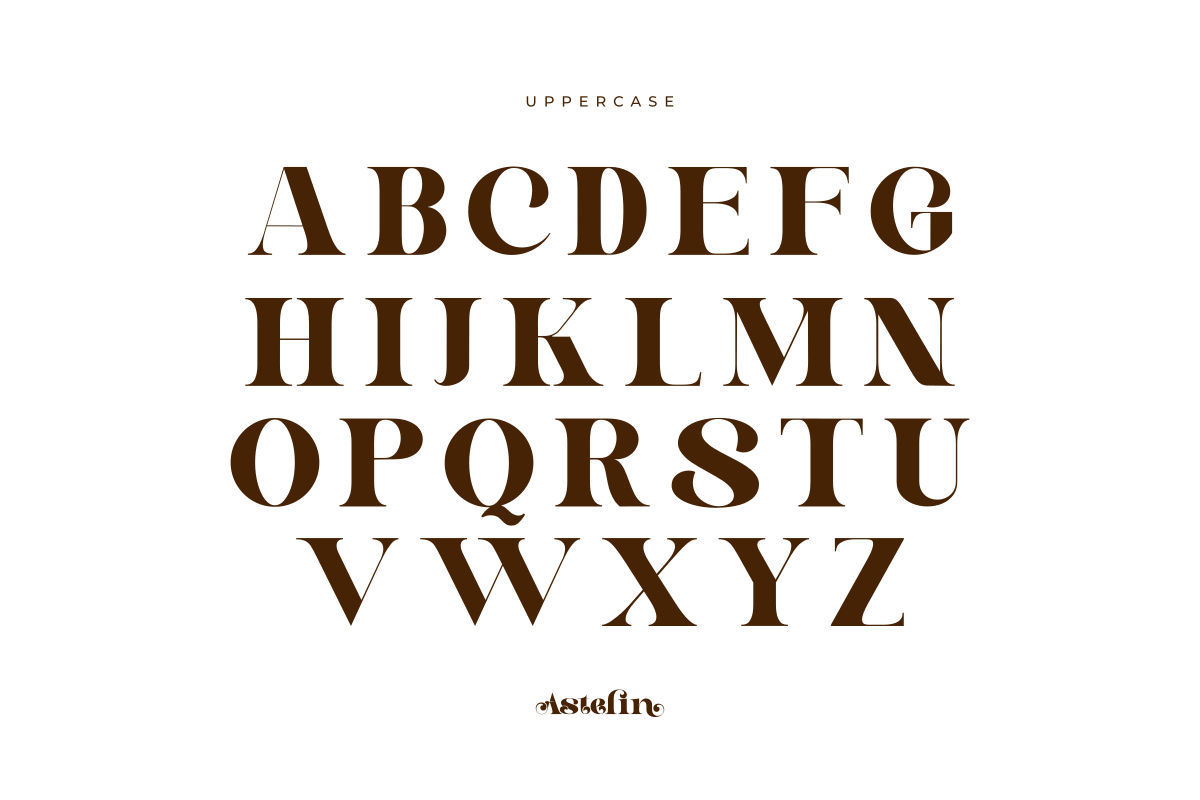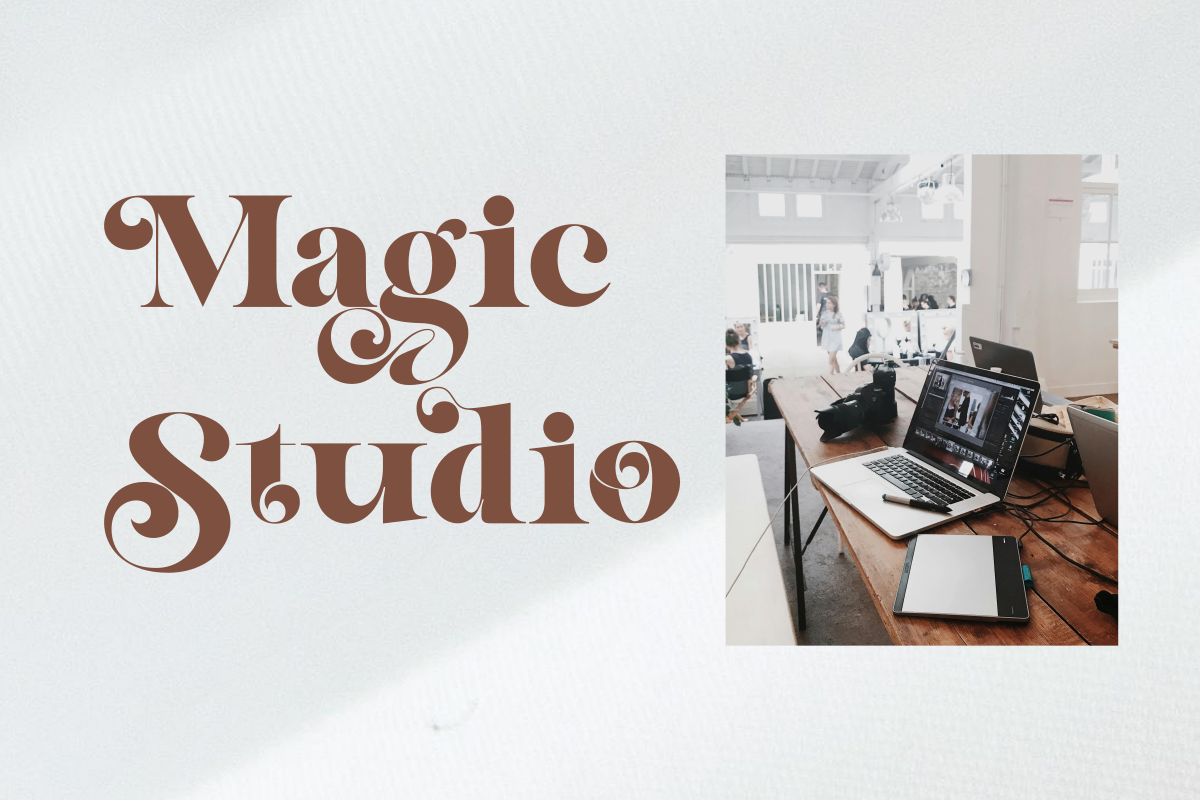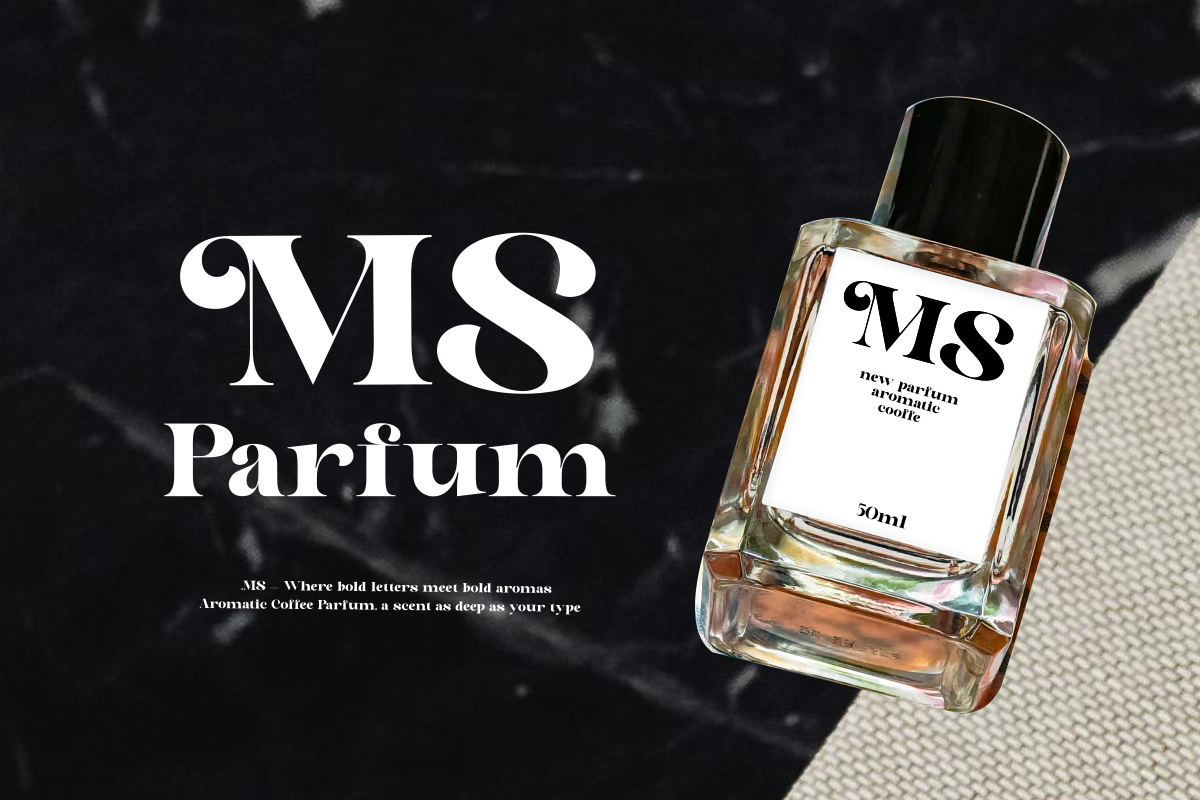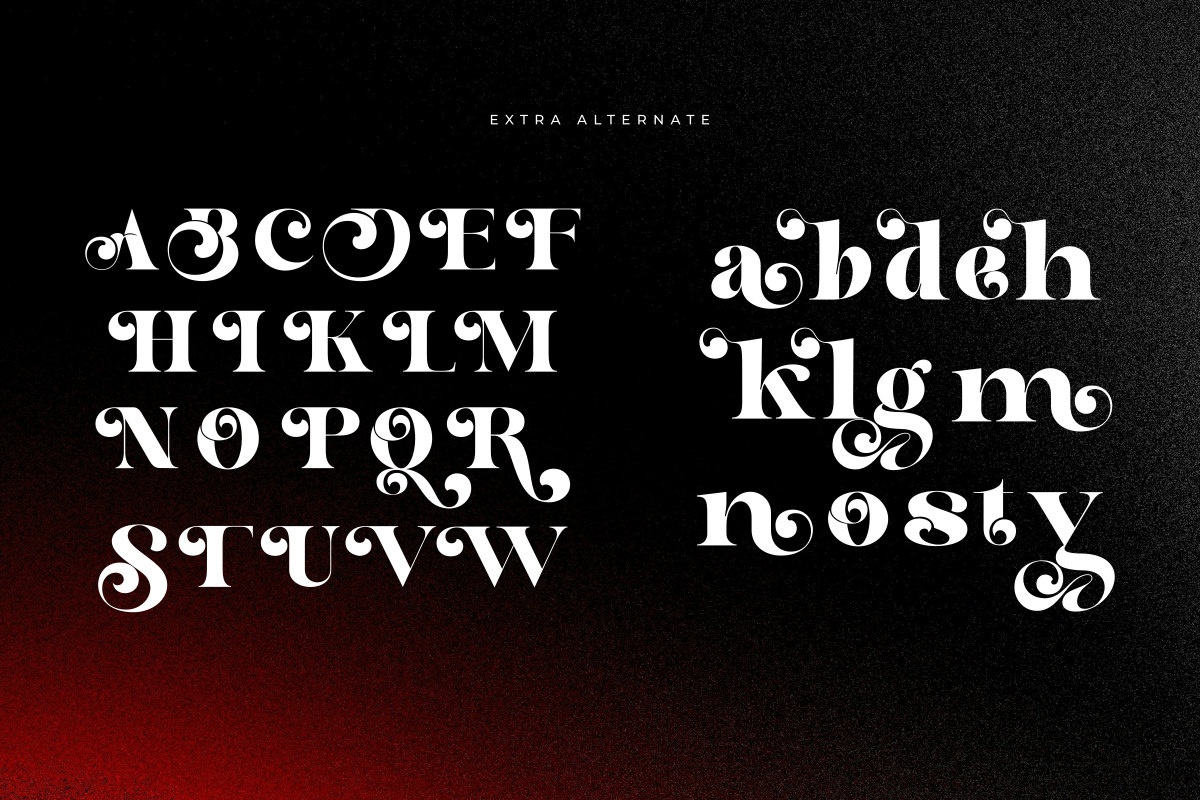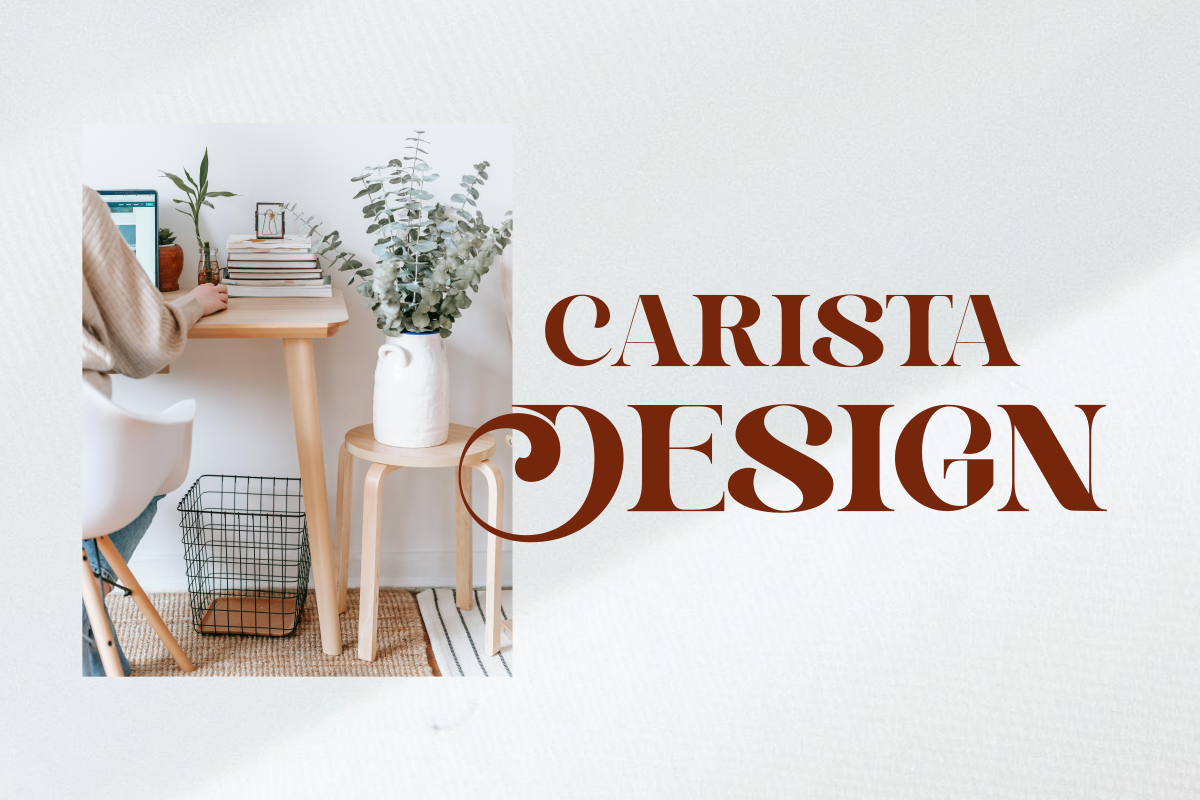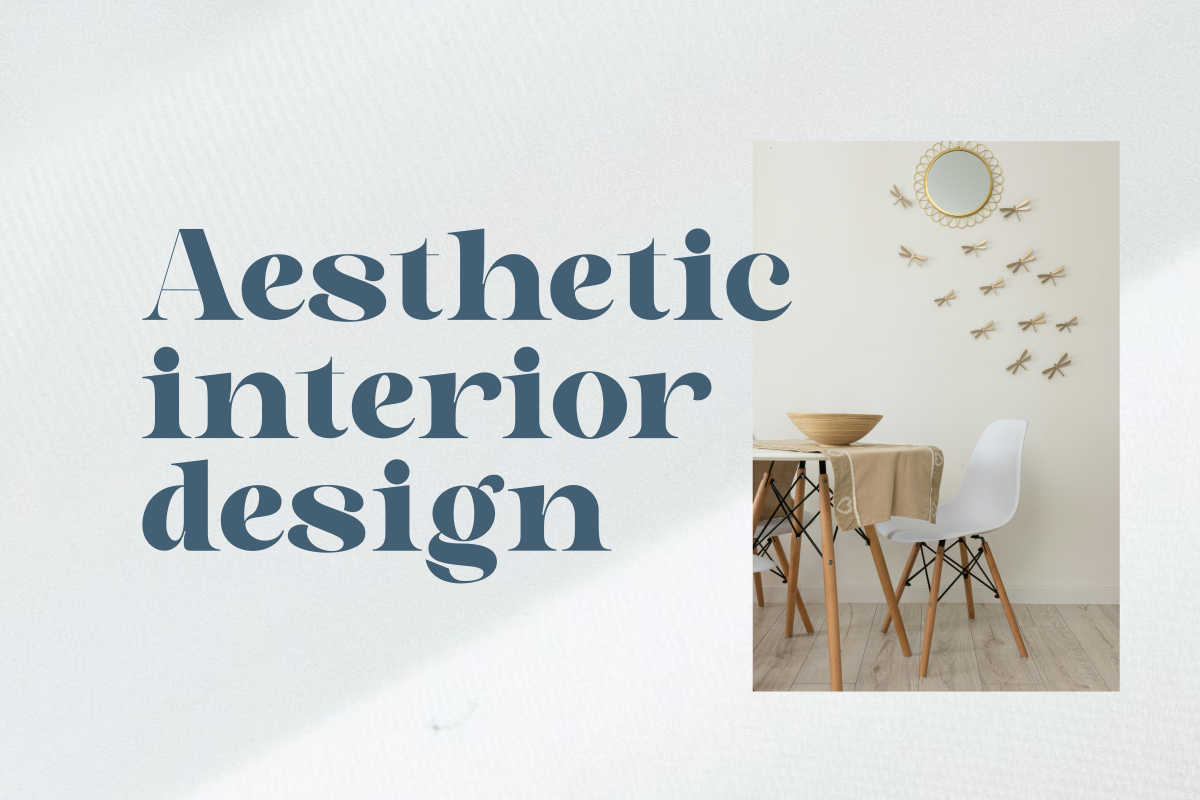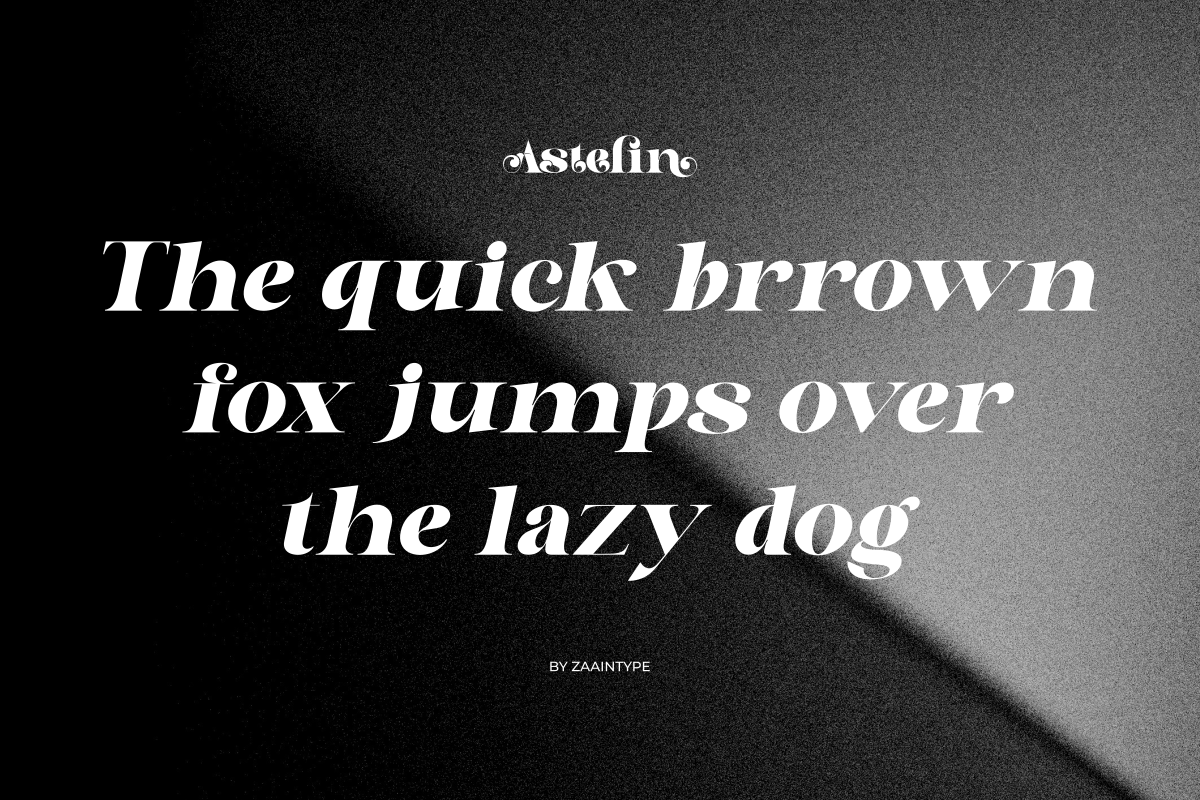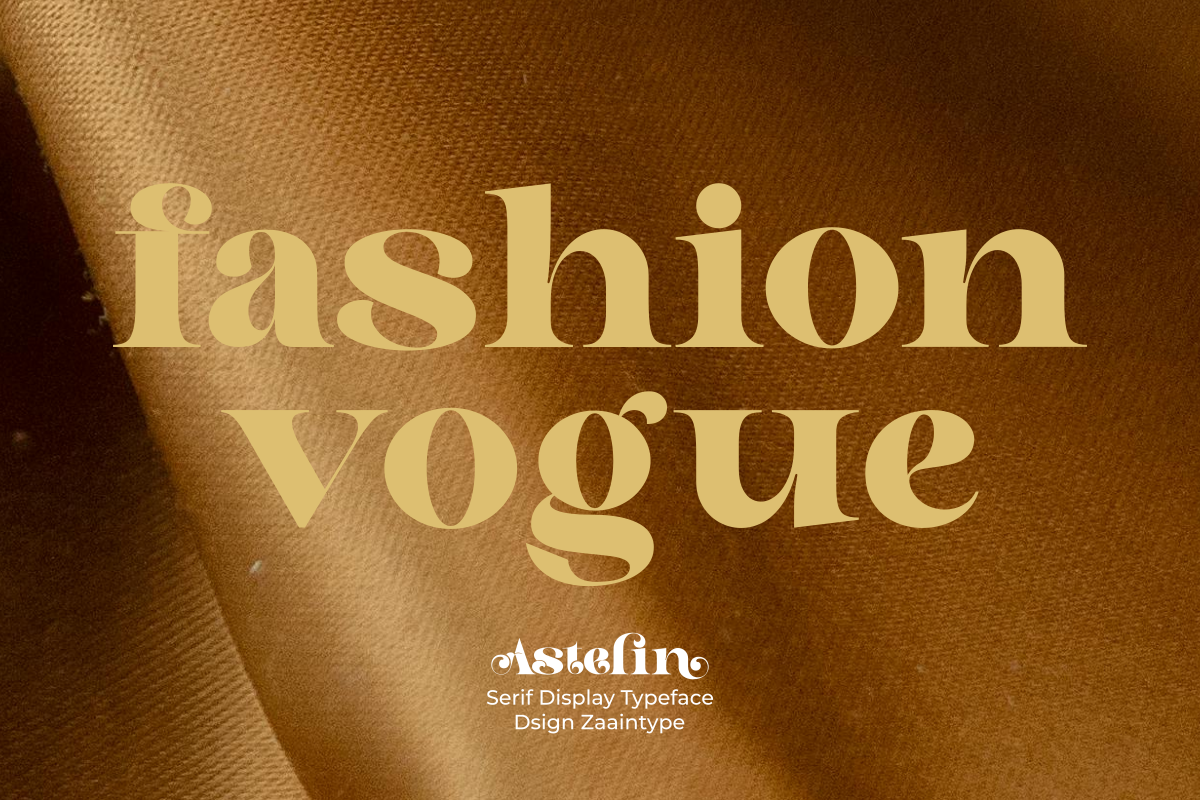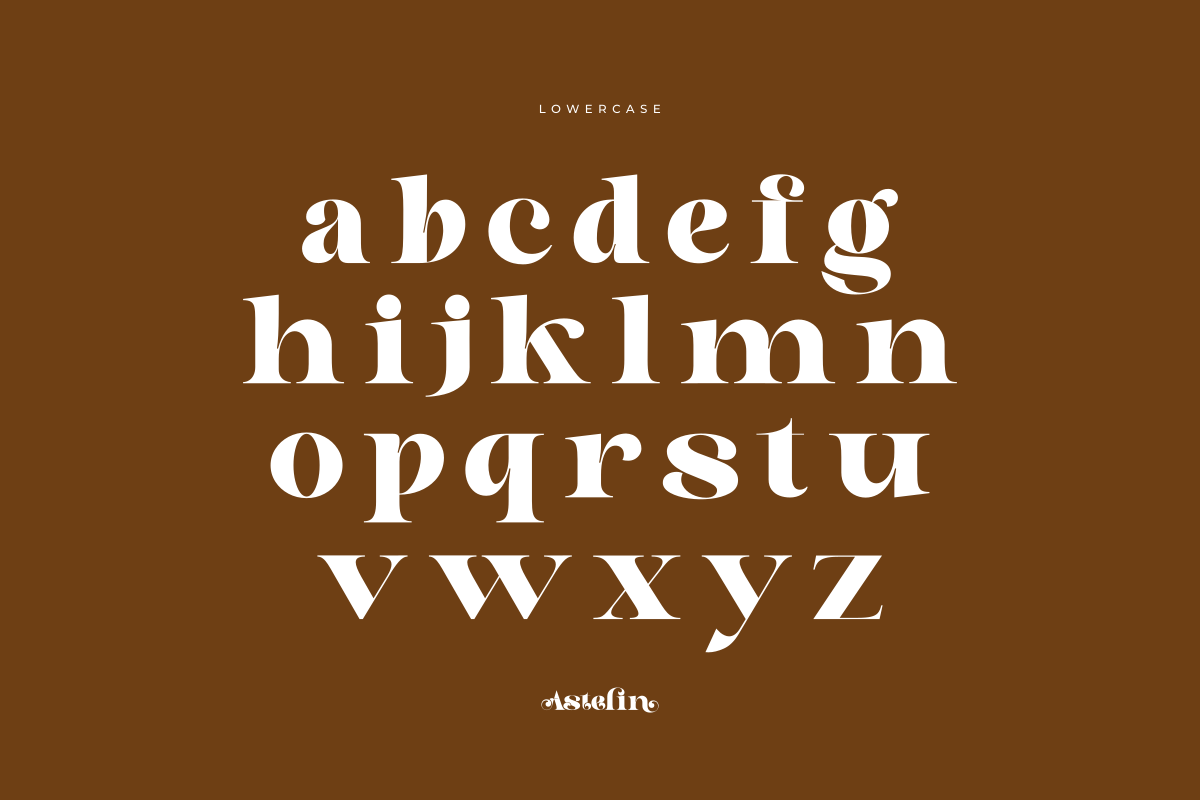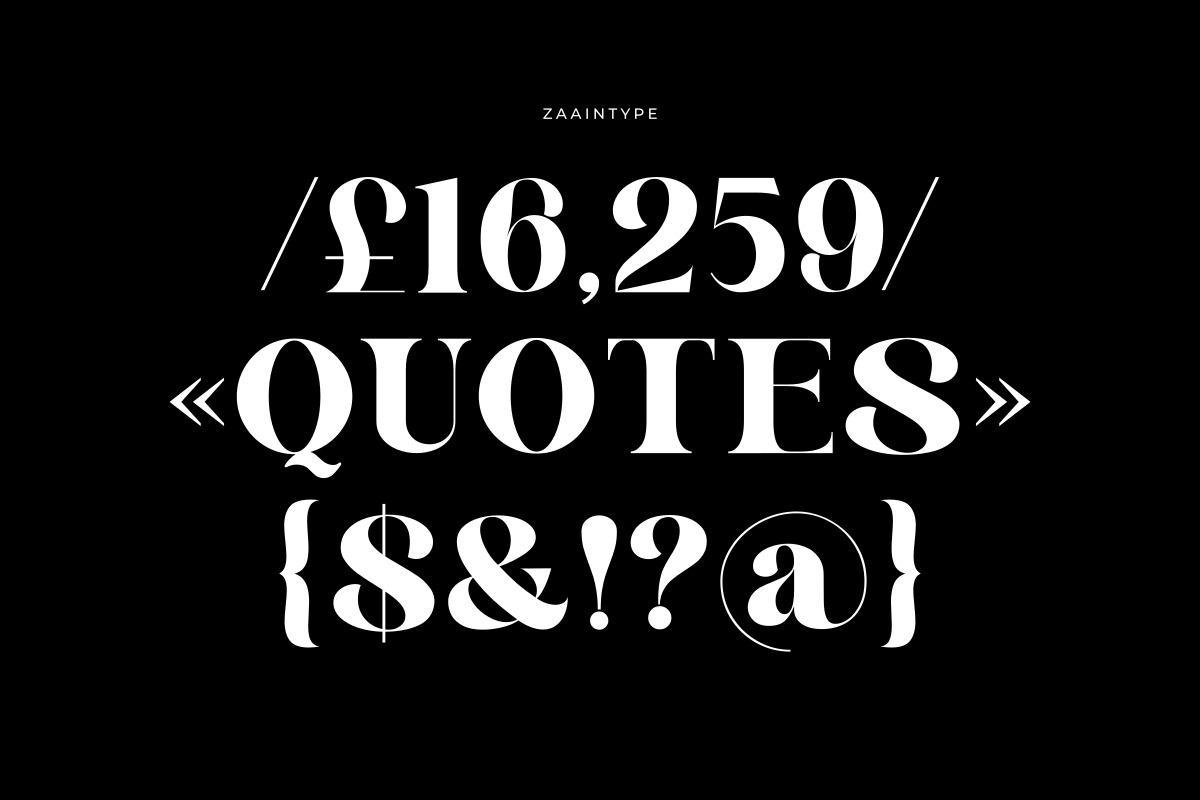
Astelin
Astelin is a display serif font that blends classic elegance with bold, captivating character. Available in two styles — Regular and Oblique — Astelin is designed to command attention in headlines, logos, or premium packaging. Perfect for editorial projects, luxury branding, and designs that demand a touch of refined boldness